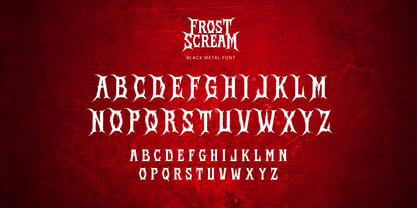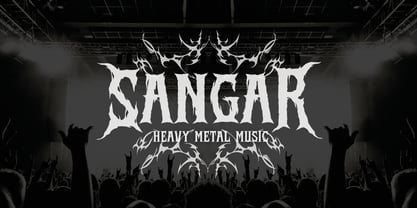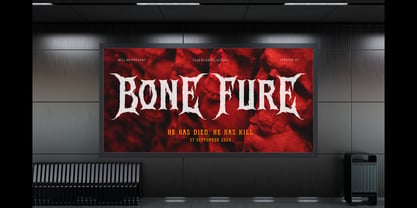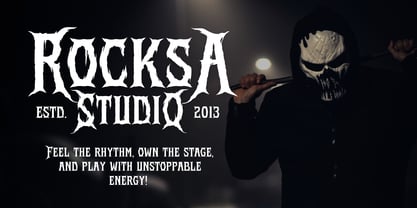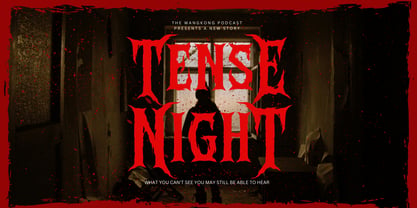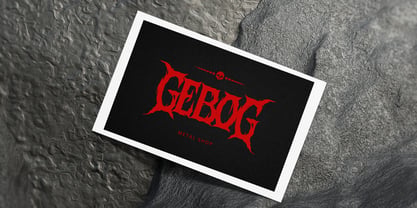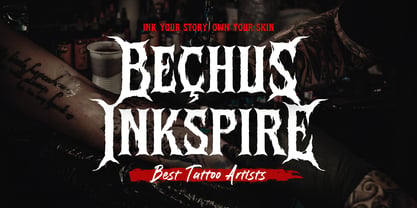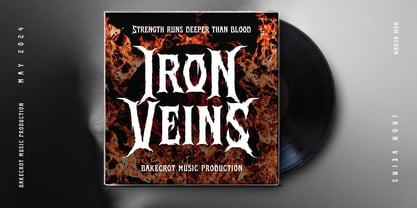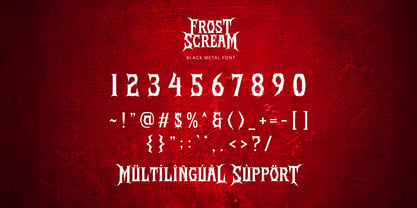
Frost Scream
by Sronstudio
The Frost Scream Font Family was designed by Muhamad Yusron Billah and published by Sronstudio. Frost Scream contains 1 styles. More about this family
Frost Scream is a fierce black metal font inspired by the raw intensity of extreme music. With sharp, jagged edges and an ominous design, this font is perfect for band logos, album covers, merchandise, and any project that demands a dark and aggressive aesthetic. Unleash the chaos with Frost Scream!
• Upper & Lowercase
• Alternate Letter
• Numeral & Punctuation
• Multilingual support
Designers: Muhamad Yusron Billah
Foundry: Sronstudio